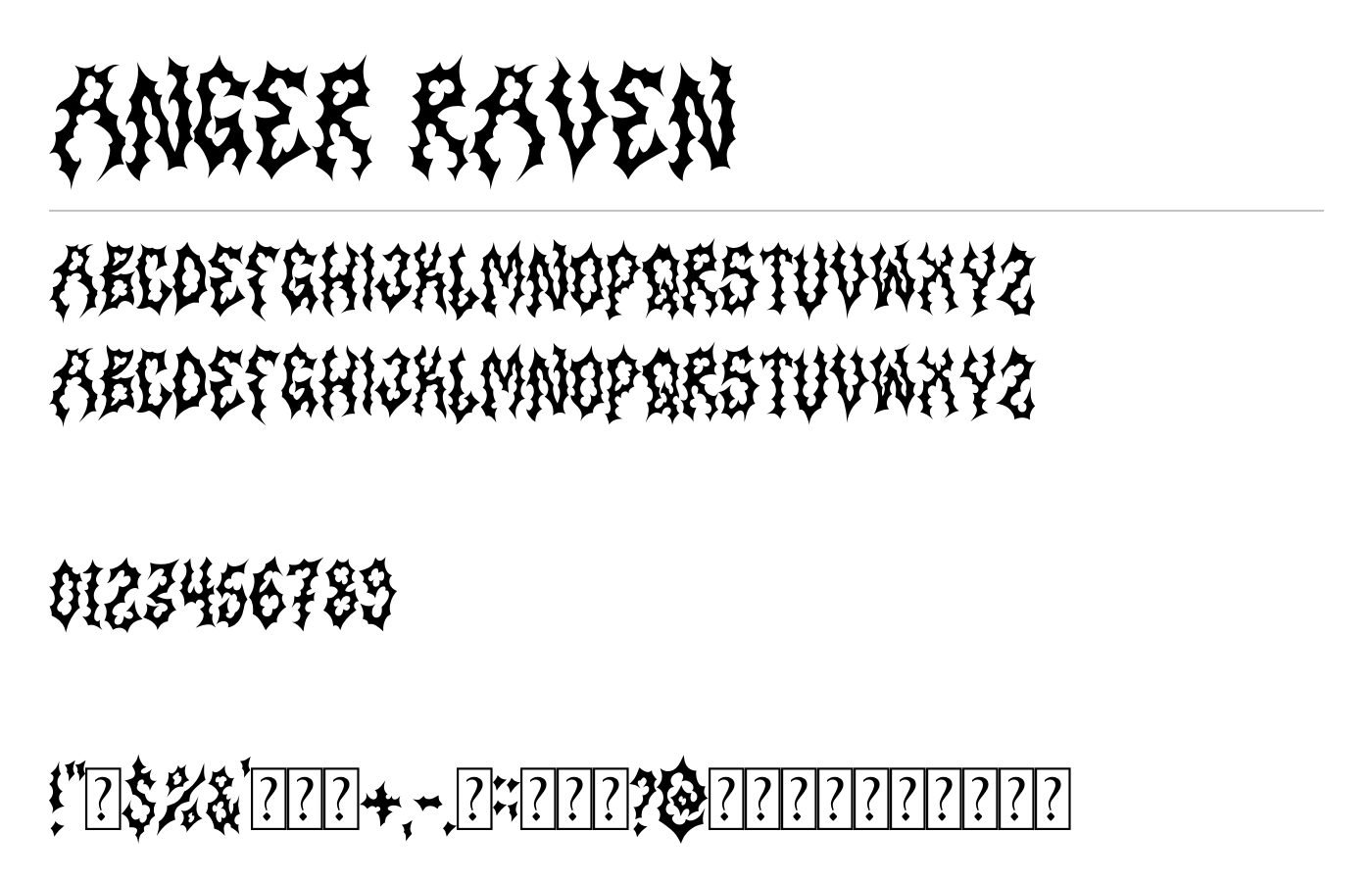
Anger Raven is a bold, decorative display font characterized by sharp, jagged edges and a dense, compact structure that gives it an intense, fierce personality. Its blackletter-inspired forms with unique angular shapes create a dramatic, gothic vibe, making it ideal for eye-catching headlines, logos, and designs that need a strong, rebellious statement. This font works best in creative projects like posters, album covers, or branding that aims to convey power, mystery, or an edgy aesthetic.
Anger Raven Font